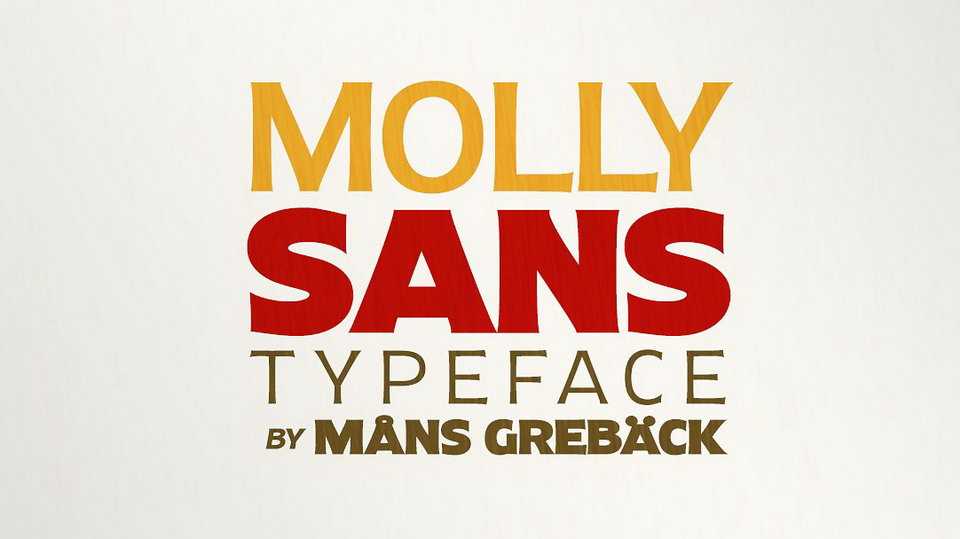
Download Molly Sans typeface, a sans-serif family with an appearance similar to traditional sign painting. This all-caps typeface works great in classic, genuine and crafty designs.
Designer: Måns Grebäck